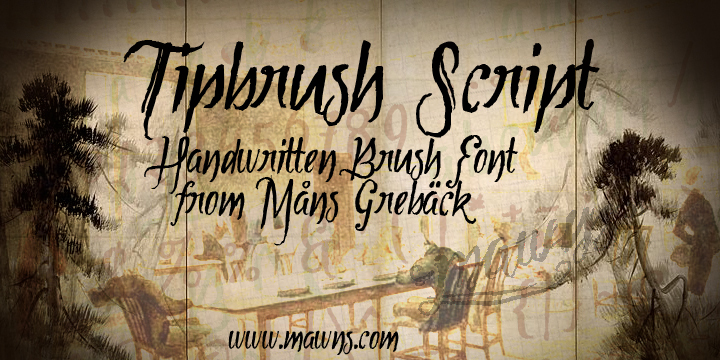
Tipbrush Script by Måns Grebäck is a free brush script with dramatic changes in stroke width and a rough, ink-loaded texture. Tall letters rise sharply above broad, sweeping connections. Splintered edges and occasional dry marks keep the lettering lively and unpolished.
Its painted texture has a direct link to expressive ink illustration, making it suitable for music posters, fashion branding, and event graphics. On merchandise, the lettering can become part of the artwork itself, functioning like a hand-painted emblem rather than a neutral caption.